As we add typefaces to our library, we search for designs that are optimised for specific areas of use. We think this helps designers find the right products for their needs. ITF’s newest releases are Title and Inbox. Although these families are both sans serifs, they could hardly be more different from each other. Where Title is narrow and utilitarian, Inbox is whimsical and decorative. As Title’s name implies, it is a typeface for film titles and credits sequences. Inbox, on the other hand, is a display typeface offering a new spin on the geometric sans genre. Inbox is a great selection for headlines and logotypes, and it was designed by Alisa Nowak. Title is by Julie Soudanne and Jérémie Hornus.
Title
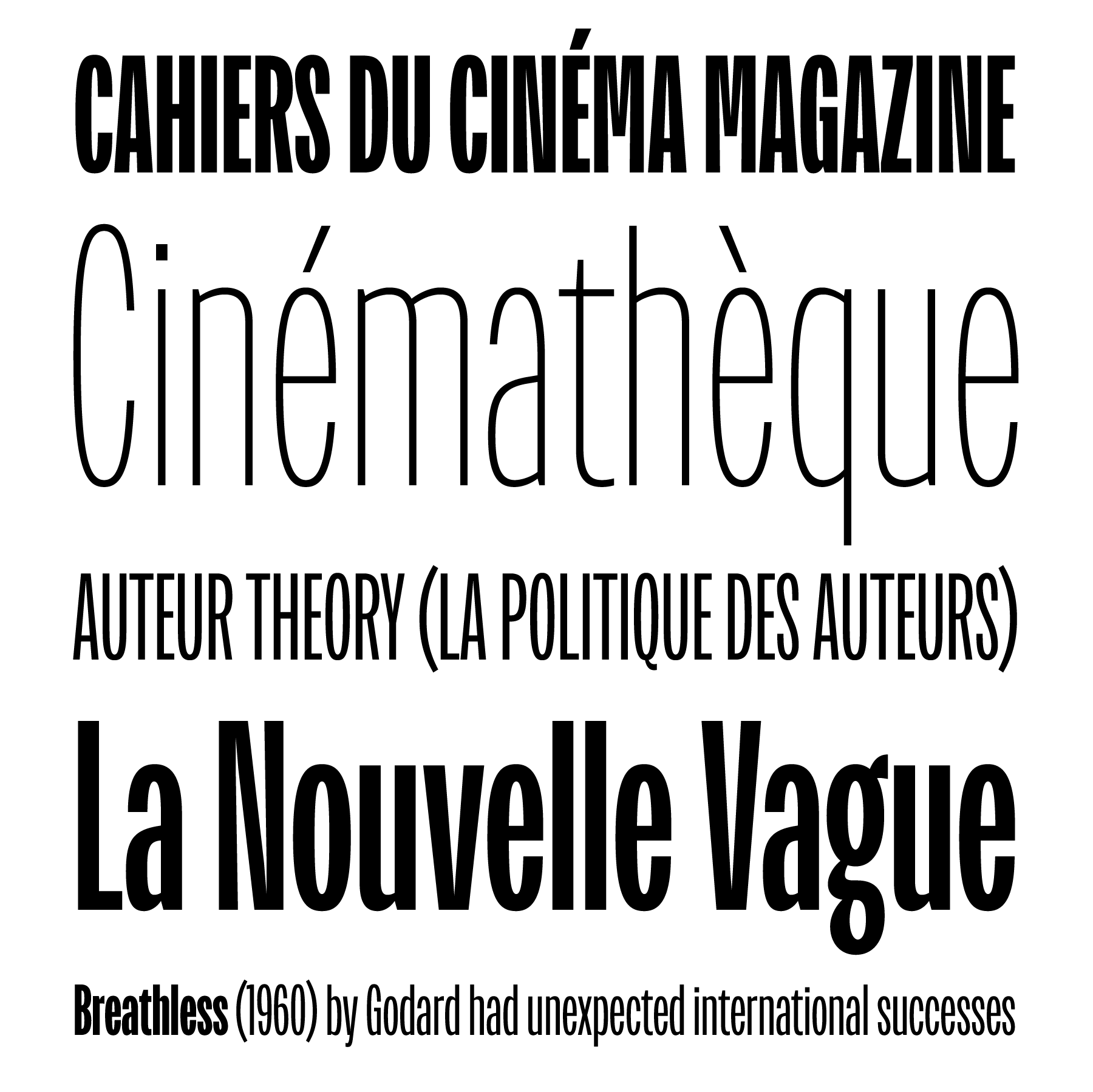
Movie titles need to catch the viewer’s attention and give them a preview of the film’s feeling. End credits, on the other hand, present viewers with an awful lot of information. Only a special kind of typeface can solved both problems. Since Title has been optimised for use in these parts of a movie bookended by type, its letterforms are extremely compressed. The family includes five fonts that range in weight from Extralight through Bold. Title’s letterforms are made up of strokes that are almost monolinear; only some characters contain visible contrast. Each font features a particularly unique capital ‘J’, which does not descend. Its out-stroke mirrors the terminals on other characters, like ‘C’, ‘G’, ‘S’, ‘2’, ‘3’, ‘5’, ‘6’, and ‘9’. The fonts include two forms for the lowercase ‘g’: the standard ‘g’ is double-storied, while the alternate form is single-storied. Title’s euro and yen currency symbols are designed with a nice little break in the center of their main strokes.
Inbox
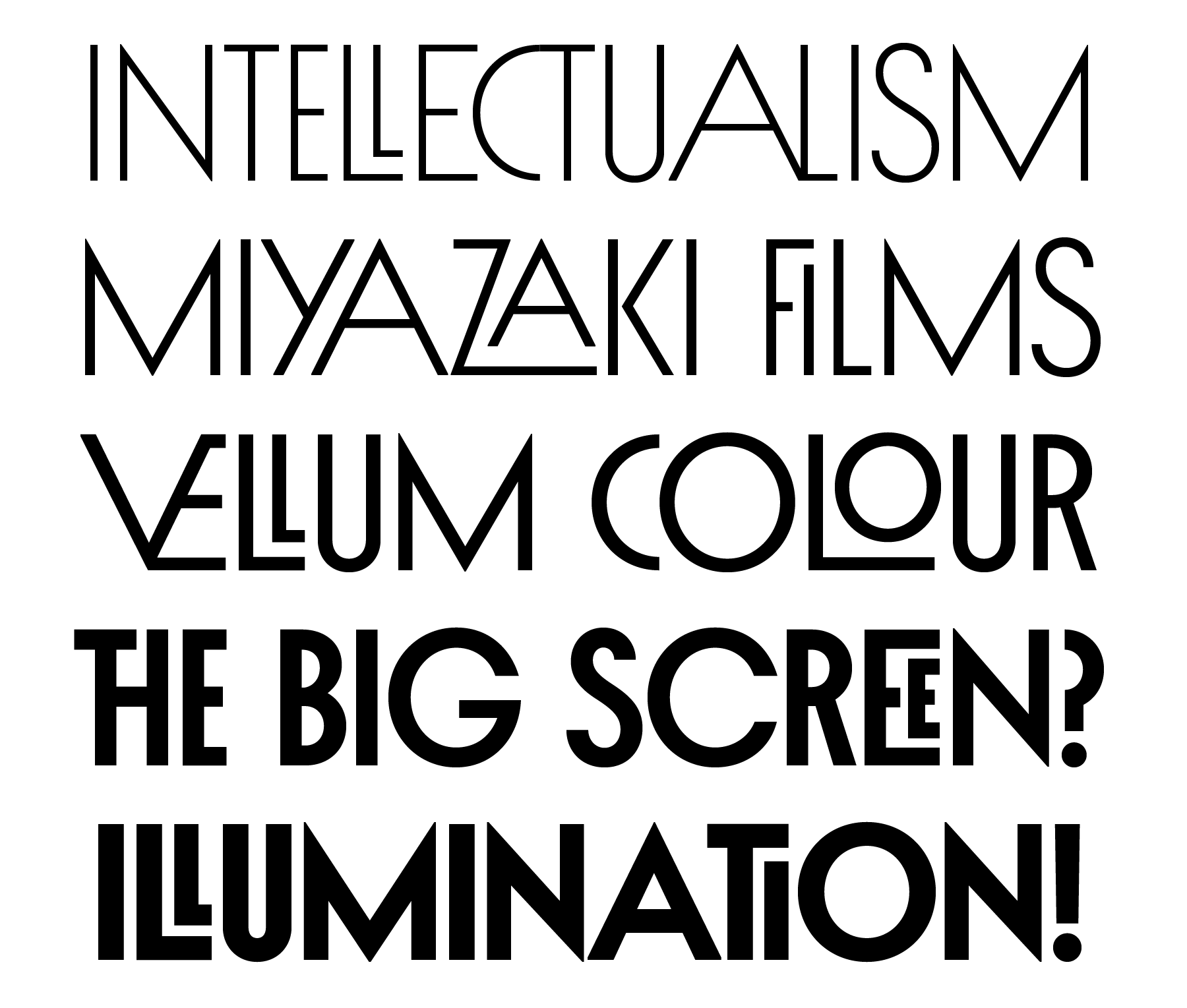
Inbox is a decorative geometric sans with five styles. Each font in the family includes a wide variety of eye-catching ligatures, as well as stylistic alternates for many of the letters. The typeface, which is all-caps, is particularly suited for application in logos, word marks, and in editorial design. Its letterforms are really monolinear in their design – much more so than Title’s. Ranging in weight from Light to Black, each Inbox font includes 447 glyphs. As is befitting for a decorative geometric sans, Inbox’s standard version of the ‘O’ looks like a circle (the standard ‘C’, ‘D’, ‘G’, and ‘Q’ are based on this). Similarly, the standard ‘A’, ‘V’, and ‘W’ are triangulars; like the ‘O’, they are also wide. The standard ‘M’ and ‘Y’ are designed in a similar language as the other triangular letters. To spice up Inbox’s inherent rhythm for text, several letters have been designed to be very narrow, such as the ‘E’, ‘F’, ‘H’, ‘I’, ‘J’, ‘K’, ‘L’, ‘P’, ‘R’, ‘S’, ‘T’, ‘U’, ‘X’, and ‘Z’. To differentiate it from the ‘O’, Inbox’s zero has a dot inside its counter.
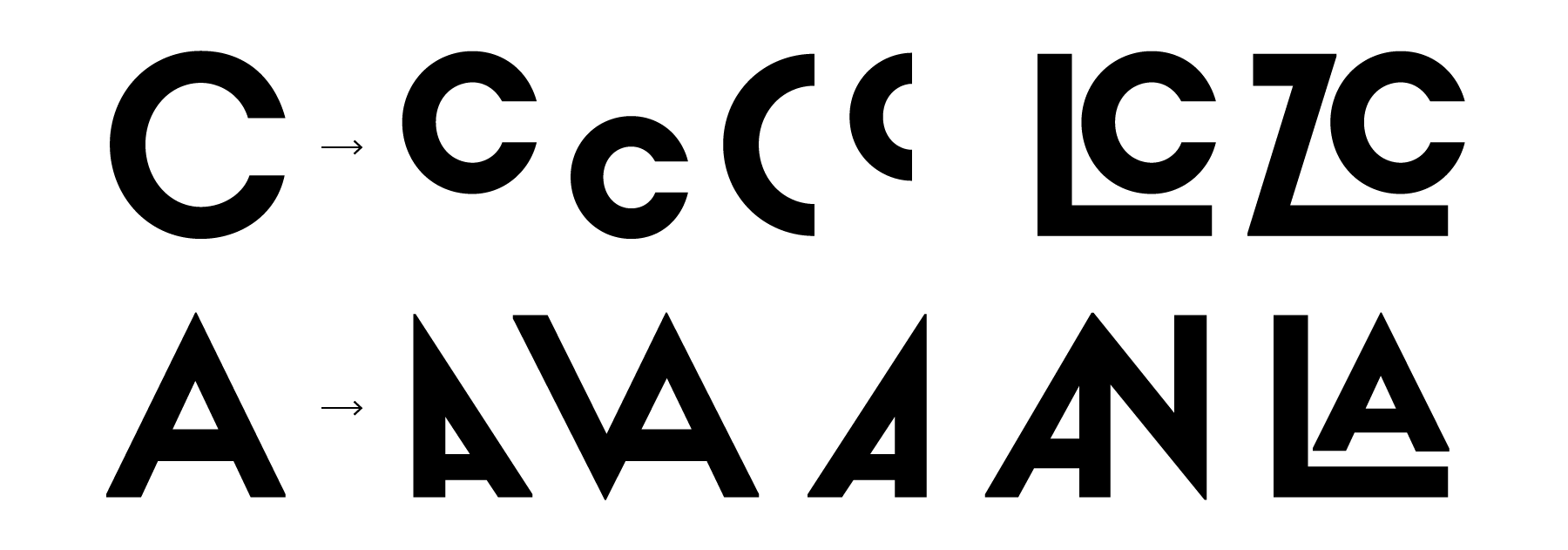
In addition to simple horizontal couplings, Inbox’s many ligatures include designs where one letter is overlapping another, or where one letter has been placed inside a second one. In terms of stylistic alternates, many characters have two different glyph variants in each font – but sometimes, Inbox is more wild. The ‘C’, for instance, has five separate versions available. Inbox’s alternate glyph designs are determined by what the letterform skeletons allow. Some alternate glyphs feature letterforms that are skewed to the left or to the right, while other alternates feature letters reduced in size and shifted upwards or downwards.